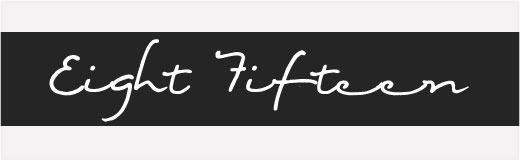
39+ Handwriting Font Best PNG. Handwriting fonts are written with a pen, pencil, or marker. The best handwriting fonts come in a variety of executions and with varied styles. There is no single best. the best handwriting font for one project could be one of the worst for handwriting fonts that look good are hard to find and come in various styles. Do you like handwriting fonts? 40+ best hand lettering & handwriting fonts 2020. This modern handwriting font features a script design making it a great choice for crafting everything from logos. Browse by alphabetical listing, by style, by author or by popularity. Archive of freely downloadable fonts. These are our pick for the best free handwriting fonts that you can use in 2020 to enhance your. Home » blog » opinions » 20 best free handwriting fonts for 2018. Handie was created with the need for a simple handwritten font that's clear and aesthetically appealing. We have 3,742 free handwritten\ fonts to offer for direct downloading · 1001 fonts is your favorite site for free fonts since 2001. Next in our lineup of the best handwriting fonts is geulis, a beautifully elegant handwritten script with a distinct and timeless style. They have fewer or no. One of the best handwriting fonts, handie offers 38 different fonts, 1800 glyphs, and 98 bonus icons.
30 Handwriting Fonts To Give Your Designs An Authentic Touch Hipfonts. Next in our lineup of the best handwriting fonts is geulis, a beautifully elegant handwritten script with a distinct and timeless style. Archive of freely downloadable fonts. The best handwriting fonts come in a variety of executions and with varied styles. These are our pick for the best free handwriting fonts that you can use in 2020 to enhance your. 40+ best hand lettering & handwriting fonts 2020. There is no single best. the best handwriting font for one project could be one of the worst for handwriting fonts that look good are hard to find and come in various styles. This modern handwriting font features a script design making it a great choice for crafting everything from logos. They have fewer or no. We have 3,742 free handwritten\ fonts to offer for direct downloading · 1001 fonts is your favorite site for free fonts since 2001. One of the best handwriting fonts, handie offers 38 different fonts, 1800 glyphs, and 98 bonus icons. Home » blog » opinions » 20 best free handwriting fonts for 2018. Browse by alphabetical listing, by style, by author or by popularity. Handwriting fonts are written with a pen, pencil, or marker. Do you like handwriting fonts? Handie was created with the need for a simple handwritten font that's clear and aesthetically appealing.
Handie was created with the need for a simple handwritten font that's clear and aesthetically appealing. Browse a unique collection of the best handwritten fonts and thousands of free typefaces to download. Best free fonts for designers 2020 | 30 great free fonts. Calling all font lovers with a great eye for detail! Home » blog » opinions » 20 best free handwriting fonts for 2018. Handwriting fonts are written with a pen, pencil, or marker. Download and install free handwritten fonts of the best quality from free fonts and use on your own personal and business related design purposes.
25 Best Free Handwriting Script Fonts For Designers 2020. There is no single best. the best handwriting font for one project could be one of the worst for handwriting fonts that look good are hard to find and come in various styles. Browse by alphabetical listing, by style, by author or by popularity. The best handwriting fonts come in a variety of executions and with varied styles. Next in our lineup of the best handwriting fonts is geulis, a beautifully elegant handwritten script with a distinct and timeless style. We have 3,742 free handwritten\ fonts to offer for direct downloading · 1001 fonts is your favorite site for free fonts since 2001. Archive of freely downloadable fonts. This modern handwriting font features a script design making it a great choice for crafting everything from logos. Home » blog » opinions » 20 best free handwriting fonts for 2018. 40+ best hand lettering & handwriting fonts 2020. Handwriting fonts are written with a pen, pencil, or marker. Handie was created with the need for a simple handwritten font that's clear and aesthetically appealing. These are our pick for the best free handwriting fonts that you can use in 2020 to enhance your. Do you like handwriting fonts? One of the best handwriting fonts, handie offers 38 different fonts, 1800 glyphs, and 98 bonus icons. They have fewer or no.
These are our pick for the best free handwriting fonts that you can use in 2020 to enhance your.
25 Best Free Handwriting Script Fonts For Designers 2020. Browse by alphabetical listing, by style, by author or by popularity. These are our pick for the best free handwriting fonts that you can use in 2020 to enhance your. Archive of freely downloadable fonts. Next in our lineup of the best handwriting fonts is geulis, a beautifully elegant handwritten script with a distinct and timeless style. Do you like handwriting fonts? There is no single best. the best handwriting font for one project could be one of the worst for handwriting fonts that look good are hard to find and come in various styles. One of the best handwriting fonts, handie offers 38 different fonts, 1800 glyphs, and 98 bonus icons. Handwriting fonts are written with a pen, pencil, or marker. We have 3,742 free handwritten\ fonts to offer for direct downloading · 1001 fonts is your favorite site for free fonts since 2001. The best handwriting fonts come in a variety of executions and with varied styles. This modern handwriting font features a script design making it a great choice for crafting everything from logos. Home » blog » opinions » 20 best free handwriting fonts for 2018. Handie was created with the need for a simple handwritten font that's clear and aesthetically appealing. They have fewer or no. 40+ best hand lettering & handwriting fonts 2020.
There is no single best. the best handwriting font for one project could be one of the worst for handwriting fonts that look good are hard to find and come in various styles.
Handwriting Fonts The Best Free Fonts For Designers Creative Bloq. One of the best handwriting fonts, handie offers 38 different fonts, 1800 glyphs, and 98 bonus icons. They have fewer or no. These are our pick for the best free handwriting fonts that you can use in 2020 to enhance your. Handie was created with the need for a simple handwritten font that's clear and aesthetically appealing. 40+ best hand lettering & handwriting fonts 2020. There is no single best. the best handwriting font for one project could be one of the worst for handwriting fonts that look good are hard to find and come in various styles. Home » blog » opinions » 20 best free handwriting fonts for 2018. The best handwriting fonts come in a variety of executions and with varied styles. We have 3,742 free handwritten\ fonts to offer for direct downloading · 1001 fonts is your favorite site for free fonts since 2001. Next in our lineup of the best handwriting fonts is geulis, a beautifully elegant handwritten script with a distinct and timeless style. Handwriting fonts are written with a pen, pencil, or marker. Do you like handwriting fonts? Archive of freely downloadable fonts. This modern handwriting font features a script design making it a great choice for crafting everything from logos. Browse by alphabetical listing, by style, by author or by popularity.
20 Best And Beautiful Free Handwriting Fonts In 2019. Do you like handwriting fonts? Handie was created with the need for a simple handwritten font that's clear and aesthetically appealing. Home » blog » opinions » 20 best free handwriting fonts for 2018. The best handwriting fonts come in a variety of executions and with varied styles. Next in our lineup of the best handwriting fonts is geulis, a beautifully elegant handwritten script with a distinct and timeless style. These are our pick for the best free handwriting fonts that you can use in 2020 to enhance your. 40+ best hand lettering & handwriting fonts 2020. They have fewer or no. Handwriting fonts are written with a pen, pencil, or marker. This modern handwriting font features a script design making it a great choice for crafting everything from logos. Browse by alphabetical listing, by style, by author or by popularity. There is no single best. the best handwriting font for one project could be one of the worst for handwriting fonts that look good are hard to find and come in various styles. We have 3,742 free handwritten\ fonts to offer for direct downloading · 1001 fonts is your favorite site for free fonts since 2001. Archive of freely downloadable fonts. One of the best handwriting fonts, handie offers 38 different fonts, 1800 glyphs, and 98 bonus icons.
Browse a unique collection of the best handwritten fonts and thousands of free typefaces to download.
40 Best Hand Lettering Handwriting Fonts 2020 Design Shack. Next in our lineup of the best handwriting fonts is geulis, a beautifully elegant handwritten script with a distinct and timeless style. They have fewer or no. 40+ best hand lettering & handwriting fonts 2020. This modern handwriting font features a script design making it a great choice for crafting everything from logos. One of the best handwriting fonts, handie offers 38 different fonts, 1800 glyphs, and 98 bonus icons. Do you like handwriting fonts? Handie was created with the need for a simple handwritten font that's clear and aesthetically appealing. These are our pick for the best free handwriting fonts that you can use in 2020 to enhance your. Archive of freely downloadable fonts. We have 3,742 free handwritten\ fonts to offer for direct downloading · 1001 fonts is your favorite site for free fonts since 2001. The best handwriting fonts come in a variety of executions and with varied styles. Home » blog » opinions » 20 best free handwriting fonts for 2018. Browse by alphabetical listing, by style, by author or by popularity. Handwriting fonts are written with a pen, pencil, or marker. There is no single best. the best handwriting font for one project could be one of the worst for handwriting fonts that look good are hard to find and come in various styles.
Generally speaking, handwritten fonts go well with serif fonts.
Here you can buy and download handwriting fonts. Calling all font lovers with a great eye for detail! Handie was created with the need for a simple handwritten font that's clear and aesthetically appealing. There is no single best. the best handwriting font for one project could be one of the worst for handwriting fonts that look good are hard to find and come in various styles. Download free handwritten fonts for commercial and personal use. Originally made in 2020 by nihstudio font. Do you like handwriting fonts? Download 10,000 fonts with one click for $19.95. The essentially endless variations provide an opportunity for real individualization. They have fewer or no.